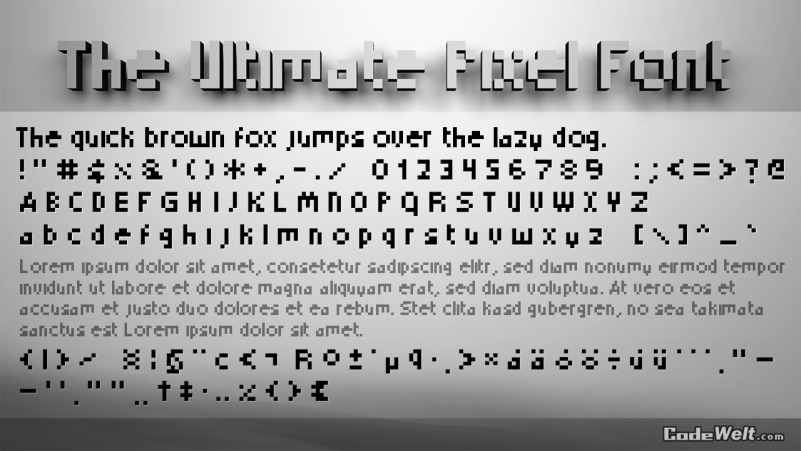
The Ultimate Pixel Font
This minimal and unique pixel art screen font consists of characters made by simple small blocks with square corners and straight edges instead of curves.
It is just perfect for low-resolution displays used by for example LED dot matrices like traffic signs or scrolling subway tickers.
Most characters use a tiny grid of only four by five pixels, which is incredibly small and yet still readable. This is a fun lowercase and uppercase typeface for letters, numbers, symbols, and punctuation.
It is a vector-based font, so unlike all the bitmap fonts, it can be scaled to any point size without quality loss or requiring an extra-large file size. Once the text is rasterized, there is still some space to customize the letters simply by moving around, adjusting, or attaching single pixels.